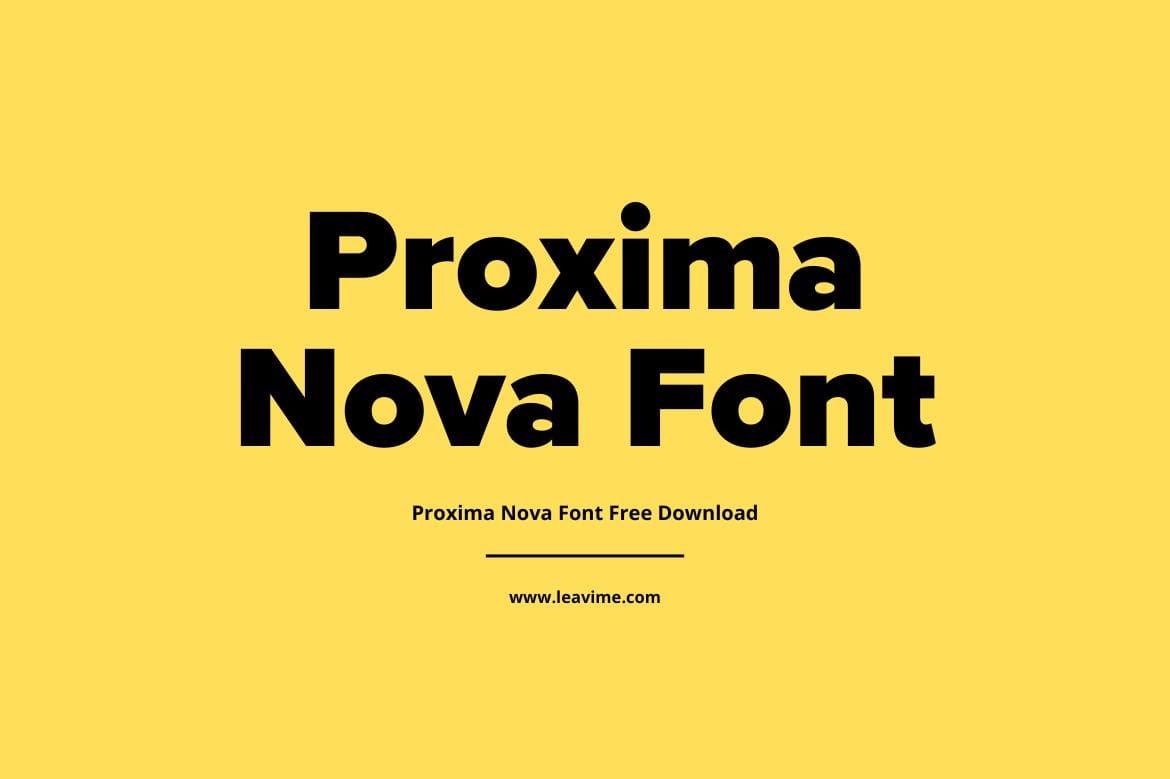
Proxima Nova Font is a widely used sans-serif font family designed by Mark Simonson in 1994. Originally developed as Proxima Sans, it underwent a significant redesign and expansion, evolving from just six fonts (three weights with their italics) into a comprehensive collection of 48 OpenType fonts. This expansion has made Proxima Nova a staple in both digital and print design, bridging the gap between classic and modern typography.
Features and Design Proxima Nova Font
Proxima Nova balances the geometric aesthetics of Futura with the modern versatility of Akzidenz Grotesk. The typeface features:
- Three Widths: Proxima Nova, Proxima Nova Condensed, and Proxima Nova Extra Condensed.
- Eight Weights: Ranging from Thin to Black, each with a corresponding italic style.
- Humanistic Yet Geometric Design: It maintains a clean, modern appearance while retaining a subtle warmth that enhances readability.
This combination of structure and fluidity makes Proxima Nova an ideal choice for a variety of design applications.
Why Choose Proxima Nova Font?
1. Versatility
Proxima Nova is suitable for diverse applications, from website UI design to editorial layouts and branding. Its multiple weights and styles offer flexibility in typography choices without compromising consistency.
2. Legibility and Readability
The typeface is designed with proportional, well-spaced letters that make text easy to read on screens and in print. This is why it is widely used by major brands and publications worldwide.
3. Modern Yet Timeless
Despite being nearly three decades old, Proxima Nova continues to dominate the design industry due to its adaptability to contemporary trends.
Where to Use Proxima Nova Font
- Web Design: Popular among UI/UX designers for clean, professional websites.
- Branding & Logo Design: Offers a sleek, corporate-friendly appearance.
- Editorial & Print Media: Common in magazines and books due to its high readability.
- Advertising & Marketing: Frequently used in digital ads and social media content.
Proxima Nova remains one of the most influential and widely used typefaces in modern design. Its balance of geometric precision and humanistic warmth makes it an excellent choice for designers looking for a contemporary yet timeless font. Whether for branding, web design, or editorial purposes, Proxima Nova is a reliable option that ensures professionalism and readability.